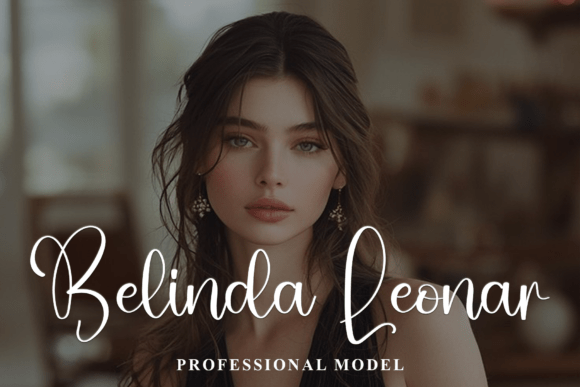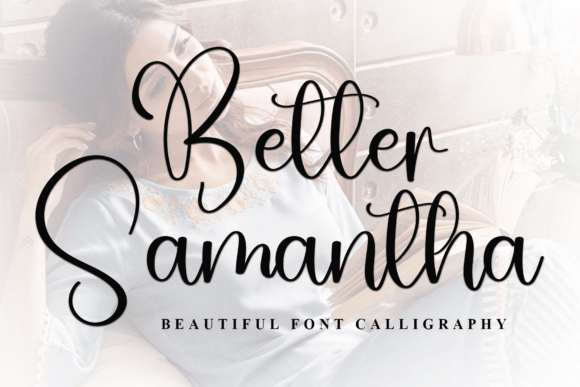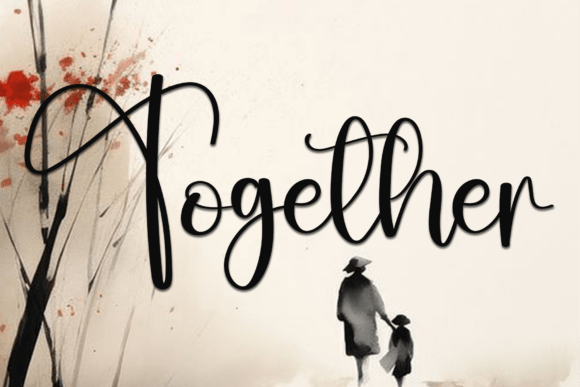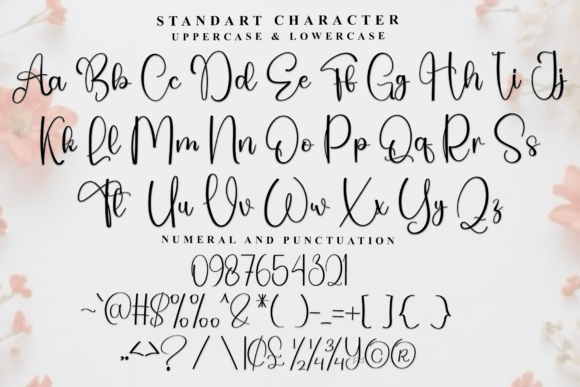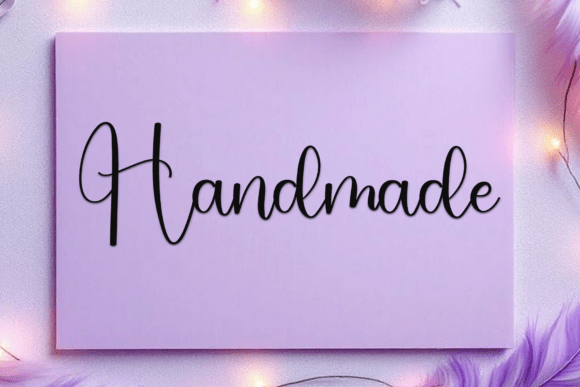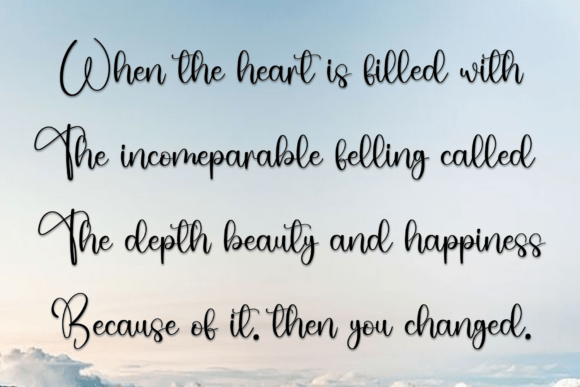
The Butterfly Effect: How a Delightful Font Can Transform Your Designs
I still remember the time I was working on a project for a client’s birthday party invitation. I had all the elements in place – the colors, the graphics, the text – but something was missing. The font I was using just didn’t feel right. It was too formal, too stiff, and it completely threw off the playful vibe I was going for. That’s when I stumbled upon the Butterfly font, and it was like a breath of fresh air. Its casual, creative charm instantly elevated my design and made it feel more approachable and fun.
A Personal Review of Butterfly Font
So, what makes the Butterfly font so special? Let’s dive into the good stuff and a few quirks I’ve discovered.
- ✨ The warm and friendly feel it brings to any design
- ✅ The playful, hand-drawn aesthetic that adds a unique touch
- 🌈 The standard PUA Encoded glyphs that make it versatile for various applications
- 💻 The ease of use across different design platforms
While the Butterfly font is delightful, there are a few things to keep in mind:
- ⚠️ It might not be the best fit for very formal or corporate designs
- 🤔 Some users might find the font a bit too casual for certain projects
A Practical Guide to Using Butterfly Font
One of the perks of the Butterfly font is its support for OpenType features and a range of glyphs. This means you can:
- Access stylistic alternates for varied text styles
- Use ligatures for a more organic feel
- Insert glyphs to add decorative elements to your text
Imagine a designer who loves nature, specifically butterflies, and wants to capture their essence in a font. This designer, perhaps working from a cozy home office surrounded by plants and butterfly models, aims to create a font that’s as friendly and approachable as a butterfly landing on your shoulder. The Butterfly font is the result of this creative process – a casual, creative typeface designed to bring warmth and playfulness to any project.
Q: Does Butterfly Font support OpenType features?
A: Yes, the Butterfly font supports OpenType features, including stylistic alternates and ligatures, which can enhance your designs.
Q: Is Butterfly Font easy to read?
A: Despite its playful nature, the Butterfly font is designed to be legible, making it suitable for both headings and body text.